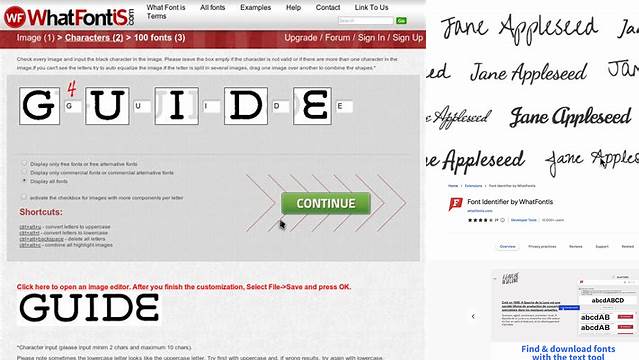
Free Font Trace: Easy Ways To Identify Fonts
Hey guys! Ever stumbled upon a font that just screams perfection for your project, but you have no clue what it is? It's happened to the best of us. That's where the magic of free font tracing comes in! In this article, we're diving deep into the world of font identification. We'll explore a bunch of cool ways to figure out what font you're looking at, from online tools to clever techniques. So, buckle up and get ready to become a font-sleuthing pro!
1. What is Font Tracing and Why is it Important?
Let's kick things off by understanding what font tracing actually means. In simple terms, it's the process of identifying a font from an image or sample. Why is this important? Well, imagine you're working on branding for a client, and they absolutely love a specific font used in a competitor's logo. Or maybe you've seen a stunning typeface in a magazine and want to use it for your own designs. Font tracing allows you to pinpoint the exact font, saving you hours of searching and guesswork. Plus, it helps you maintain consistency and professionalism in your projects. Knowing how to perform a free font trace is a valuable skill for any designer, marketer, or anyone who cares about typography.
2. Online Font Identification Tools: Your Best Friends
The digital age has blessed us with some seriously amazing tools, and online font identification tools are definitely among them. These websites use clever algorithms to analyze images and suggest potential font matches. Think of them as Shazam, but for fonts! They're super user-friendly – usually, you just upload an image containing the font, and the tool will do its thing. We'll be looking at some of the top contenders in this category, so you can find the one that works best for your needs. It is important to explore each feature and use all the tools to find your best friend.
3. How to Use WhatFont to Identify Fonts on Websites
WhatFont is a fantastic browser extension that makes identifying fonts on websites a breeze. Seriously, it's like having a font detective right in your browser! With just a click, you can hover over any text on a webpage and instantly see the font name, size, and color. It's a game-changer for web designers and anyone who's ever admired a font on a website and wondered what it was. We'll walk you through how to install and use WhatFont, so you can start uncovering the secrets of web typography today. This technique makes it simpler to free font trace while browsing the web.
4. Exploring MyFonts for Font Identification
MyFonts isn't just a font marketplace; it's also a powerful font identification tool. Their "WhatTheFont" feature lets you upload an image and get a list of potential matches from their vast font library. What sets MyFonts apart is its massive collection of fonts, so you're more likely to find even obscure or less common typefaces. We'll delve into the specifics of using WhatTheFont, including tips for getting the best results. If you are looking for a free font trace, MyFonts is a great place to start.
5. Using Fontspring's Matcherator for Font Detection
Fontspring's Matcherator is another excellent online tool for font detection. It boasts a user-friendly interface and accurate results, making it a popular choice among designers. Like other font identifiers, you upload an image, and Matcherator analyzes the glyphs (the individual characters) to find matching fonts. We'll go over how to use Matcherator effectively and discuss its strengths and weaknesses compared to other tools. This is another useful way to free font trace.
6. Adobe Font Finder: A Designer's Secret Weapon
If you're an Adobe Creative Cloud user, you've got a secret weapon in your arsenal: the Adobe Font Finder. Integrated directly into apps like Photoshop and Illustrator, this tool allows you to identify fonts from images seamlessly. It's incredibly convenient and can save you a ton of time. We'll show you how to access and use Adobe Font Finder, plus some tips for optimizing your results. For Adobe users, this is an invaluable tool for a free font trace.
7. The Power of Typography Terminology in Font Tracing
Knowing your typography terms can significantly boost your font tracing skills. Understanding concepts like serif, sans-serif, x-height, and ascenders/descenders will help you narrow down your search and communicate more effectively when seeking help. We'll cover essential typography terminology and how it applies to identifying fonts. The more you learn about typography, the easier it will be to perform a free font trace.
8. Serif vs. Sans-Serif Fonts: A Key Distinction
The first step in font identification is often determining whether a font is serif or sans-serif. Serif fonts have small decorative strokes (serifs) at the ends of the letterforms, while sans-serif fonts do not. This is a fundamental distinction that can dramatically narrow your search. We'll explore the characteristics of both serif and sans-serif fonts and provide examples of popular typefaces in each category. Understanding this difference is crucial for a successful free font trace.
9. Understanding Font Weight and Style Variations
Fonts come in various weights (e.g., light, regular, bold) and styles (e.g., italic, condensed). Recognizing these variations is crucial for accurate font identification. A font might look completely different in bold italic compared to its regular weight. We'll discuss how to identify different font weights and styles, and how they can impact your tracing efforts. Being able to identify these variations is important for a free font trace.
10. The Importance of X-Height in Font Identification
The x-height is the height of the lowercase "x" in a font, and it's a significant factor in determining a font's overall appearance. Fonts with a large x-height often appear more legible and modern, while those with a smaller x-height can have a more classic or elegant feel. Understanding how to assess x-height can be a valuable tool in your font identification arsenal. This is a key element to consider when you free font trace.
11. Analyzing Ascenders and Descenders for Font Clues
Ascenders are the parts of lowercase letters that extend above the x-height (like the top of the "h" or "b"), while descenders extend below the baseline (like the bottom of the "g" or "p"). The length and shape of ascenders and descenders can be distinctive features that help you identify a font. We'll explore how to analyze these elements and use them as clues in your font tracing journey. This will help you to free font trace fonts more accurately.
12. Kerning and Letter Spacing: Subtle Font Identifiers
Kerning refers to the spacing between individual letters, while letter spacing (or tracking) is the overall spacing between all letters in a word or phrase. While subtle, these spacing characteristics can be telltale signs of a particular font. A font with tight kerning might have a more compact and modern look, while one with loose letter spacing can feel more airy and elegant. We'll delve into how kerning and letter spacing can aid in font identification. Noticing these details can be essential for a free font trace.
13. Identifying Font Families: Finding the Perfect Match
Fonts often come in families, which are sets of related typefaces that share a common design but have different weights, styles, and widths. Identifying the font family is crucial for maintaining consistency in your designs. If you identify a font as "Roboto," for example, you'll know to look for other Roboto variations like Roboto Bold, Roboto Italic, etc. We'll discuss how font families work and how to identify them. Identifying the correct family is important for a successful free font trace.
14. The Art of Visual Comparison in Font Tracing
Sometimes, the best way to identify a font is simply through visual comparison. Once you've narrowed down your options using online tools or typography knowledge, compare the sample font side-by-side with potential matches. Pay close attention to the shapes of individual letters, the overall texture of the typeface, and any unique characteristics. We'll share tips for effective visual comparison and how to train your eye to spot subtle differences. This is a fundamental skill for anyone who wants to free font trace.
15. Creating a Font Library for Easy Reference
Building your own font library can be a huge time-saver when you're working on design projects. When you come across a font you like, note its name, where you found it, and any key characteristics. Over time, you'll develop a valuable resource that you can refer to whenever you need to identify a font or find the perfect typeface for a project. We'll discuss how to create and organize your own font library. Having a personal library can make the process to free font trace much easier in the future.
16. Using Font Management Software for Organization
If you're serious about typography, font management software can be a lifesaver. These programs help you organize your fonts, activate and deactivate them as needed, and even identify fonts based on visual characteristics. Popular options include FontBase and RightFont. We'll explore the benefits of font management software and recommend some of the top options available. Using such software helps streamline the effort to free font trace.
17. Asking the Community: Leveraging Font Forums and Groups
Sometimes, you might hit a dead end with online tools and visual comparison. That's where the power of the community comes in! There are many online font forums and groups where typography enthusiasts and experts gather to discuss fonts and help each other with identification. We'll share some popular forums and groups where you can ask for help and get valuable insights. Don't hesitate to reach out for assistance when you free font trace.
18. Troubleshooting Common Font Identification Problems
Font tracing isn't always a walk in the park. You might encounter challenges like blurry images, distorted text, or fonts that are similar but not quite the same. We'll address common font identification problems and offer troubleshooting tips to help you overcome these hurdles. Knowing how to deal with these challenges is crucial to free font trace effectively.
19. Dealing with Distorted or Low-Resolution Font Samples
One of the biggest challenges in font tracing is working with distorted or low-resolution font samples. These can make it difficult for online tools to accurately identify the font. We'll discuss techniques for cleaning up images, sharpening text, and improving the overall quality of your sample before uploading it to a font identifier. Improving the quality of samples helps to free font trace more accurately.
20. Identifying Fonts in Logos: A Special Case
Identifying fonts used in logos can be tricky because logos often involve custom modifications or unique lettering. However, there are still ways to trace fonts in logos. We'll explore specific strategies for identifying logo fonts, including looking for similar fonts and contacting the logo designer if possible. This can be a complex process, but it is still possible to free font trace logo fonts.
21. The Ethics of Using Identified Fonts
Before you start using a font you've identified, it's essential to consider the ethics of font usage. Some fonts are free for personal and commercial use, while others require a license. We'll discuss the importance of respecting font licenses and avoiding copyright infringement. It's important to respect licensing agreements when you free font trace and use fonts.
22. Understanding Font Licensing and Usage Rights
Font licensing can be complex, but it's crucial to understand the different types of licenses and what they allow. Some licenses are free, while others require payment. Some allow commercial use, while others are restricted to personal projects. We'll break down the basics of font licensing and how to ensure you're using fonts legally. This is a critical aspect to understand after you free font trace a font.
23. Free vs. Commercial Fonts: Making the Right Choice
There are countless free fonts available online, but it's important to weigh the pros and cons of using them versus commercial fonts. Free fonts can be a great option for personal projects or when you're on a tight budget, but commercial fonts often offer higher quality, more extensive character sets, and better support. We'll help you decide when to choose free fonts and when to invest in commercial ones. Consider your needs carefully when you free font trace and decide which type of font to use.
24. Exploring Google Fonts: A Treasure Trove of Free Typefaces
Google Fonts is a fantastic resource for free, high-quality typefaces. It offers a vast library of fonts that are open-source and free to use for both personal and commercial projects. We'll explore the Google Fonts library and share tips for finding the perfect font for your needs. This is a great place to look if you've managed to free font trace a font and want to find a similar free alternative.
25. Alternative Free Font Resources Beyond Google Fonts
While Google Fonts is a go-to resource, there are other excellent free font resources out there. Sites like Font Squirrel, DaFont, and Creative Fabrica offer a wide variety of free fonts, though it's always important to check the licensing terms carefully. We'll highlight some of these alternative resources and discuss their strengths and weaknesses. Diversifying your search can help you free font trace and find more unique fonts.
26. Combining Different Fonts Effectively in Design
Once you've identified a font, the next step is to combine it effectively with other fonts in your design. Font pairing is an art, and it's essential to choose fonts that complement each other and create a harmonious visual hierarchy. We'll share tips for successful font pairing, including using contrasting fonts and considering the mood and message of your design. Knowing how fonts work together enhances the value of your ability to free font trace.
27. Understanding Font Psychology: Choosing the Right Mood
Fonts evoke emotions and convey messages. Font psychology is the study of how different typefaces impact the way viewers perceive your design. A bold, sans-serif font might convey strength and modernity, while a delicate serif font can evoke elegance and tradition. We'll delve into font psychology and how to choose fonts that align with the desired mood and message of your project. Consider the psychology of a font when you free font trace and plan to use it.
28. Font Tracing for Historical and Vintage Designs
Font tracing is particularly useful when working on historical or vintage designs. Identifying the original fonts used in these projects can help you create authentic and accurate recreations. We'll discuss strategies for tracing fonts in vintage materials and offer resources for finding historical typefaces. This is a specialized area where the ability to free font trace can be very valuable.
29. The Future of Font Identification Technology
Font identification technology is constantly evolving, with new tools and techniques emerging all the time. We'll take a look at the future of font tracing and discuss potential advancements in this field, such as AI-powered font recognition and improved image analysis. The future looks bright for those who want to free font trace fonts easily.
30. Mastering Font Tracing: Practice Makes Perfect
Like any skill, mastering font tracing takes practice. The more you work at it, the better you'll become at identifying fonts quickly and accurately. We'll encourage you to practice your font tracing skills regularly and offer resources for further learning. Remember, the ability to free font trace well is a valuable skill in design and beyond. Keep practicing and you'll become a font-tracing pro!